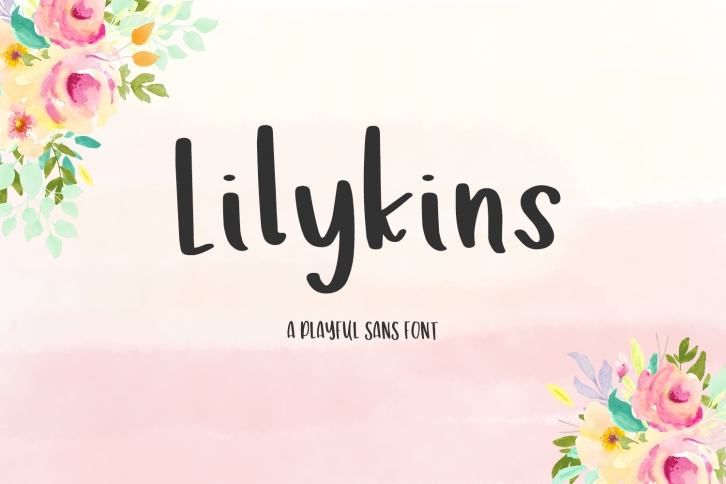
Lilykins Sans is a great font that was designed by BeckMcCormick. Imagine the amount of combinations you can create using this font! The archive is 11.15 MB and it was released on June 15, 2018. Lilykins Sans looks beautiful on wedding invitations, greeting cards, logos, posters, labels, t-shirt designs, logos, business cards and is perfect for use in ink or watercolor works, fashion, magazines, packaging and food menus, children's books and more!